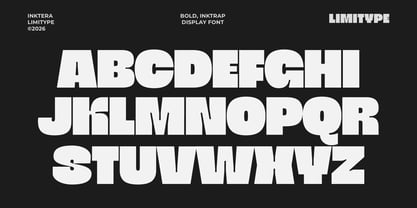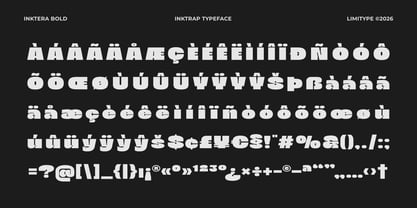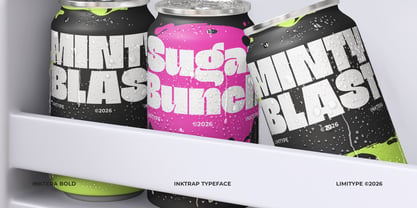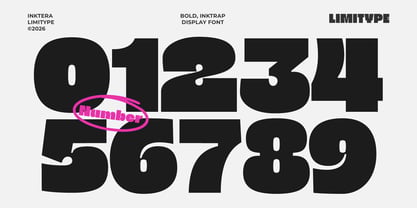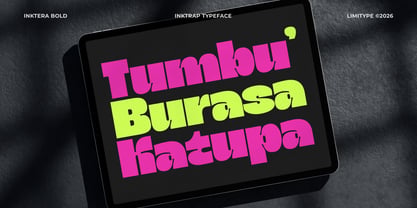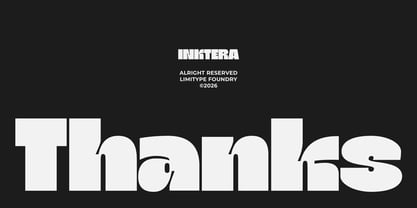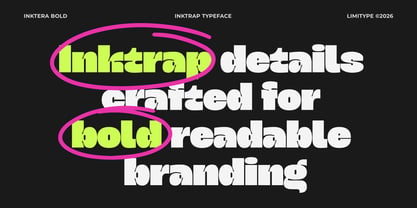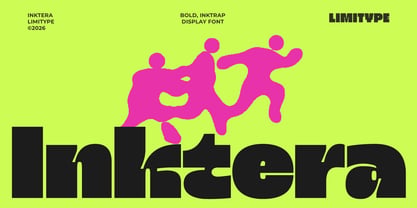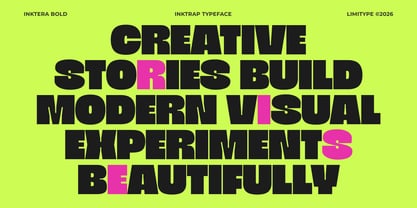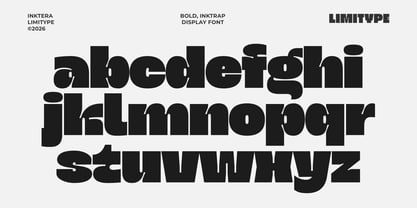
Inktera
La famille de polices Inktera a été conçue par Muhammad Muammar, Furqan Sudirman et publiée par limitype. Inktera contient 1 styles. En savoir plus sur cette famille
Inktera is a bold display font featuring distinctive Inkrap inspired details and a unique character structure designed to stand out across various digital and print design needs. Inktera is suitable for branding, headlines, posters, packaging, editorial layouts, logotypes, and modern visual identities. With a strong contemporary appearance and powerful letterforms, Inktera delivers a professional, modern, and striking impression. Designed for flexible display needs, it is capable of creating bold visuals while maintaining a stylish look across various creative projects.
Inktera available with:
• Uppercase
• Lowercase
• Number
• Symbol
• Multilingual